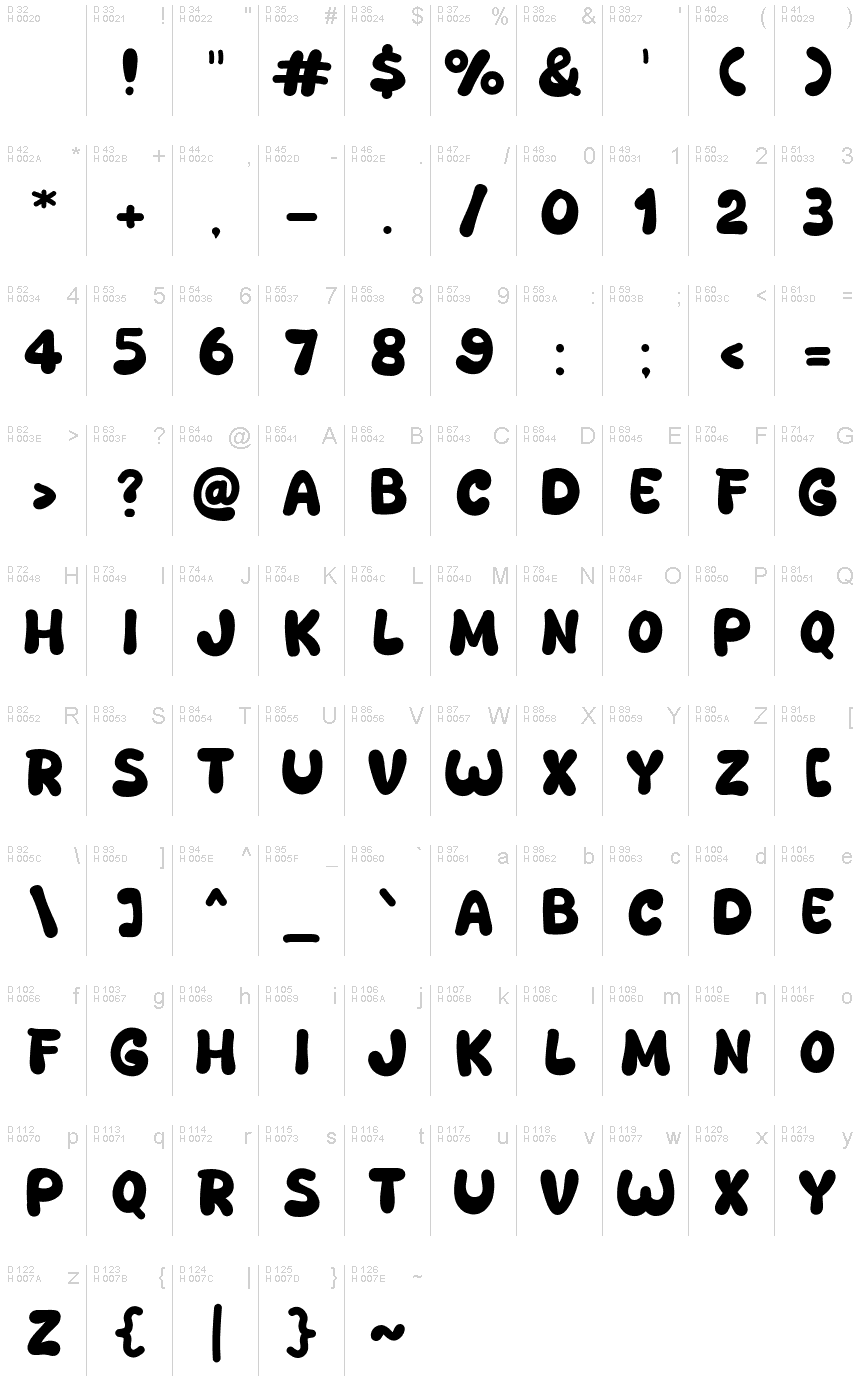
Milk Mango
Milk Mango, crafted by the imaginative Khurasan, bursts onto the design scene with its extra-bold display character and playful cartoon style. This font embodies fun with its chunky, rounded letters that seem to dance whimsically across the page. Ideal for grabbing attention, Milk Mango brings a touch of delight to posters, logos, and magazine headlines. Its charming presence transforms book covers and banners into inviting works of art.
With Milk Mango at your creative fingertips, watch as your designs spring to life with an energetic pop of personality. Whether it's in print or digital form, this font ensures that your projects will not only be noticed but remembered. Embrace the joy and versatility of Milk Mango; let it infuse your ideas with its undeniable charisma and make a bold statement in any creative endeavor.